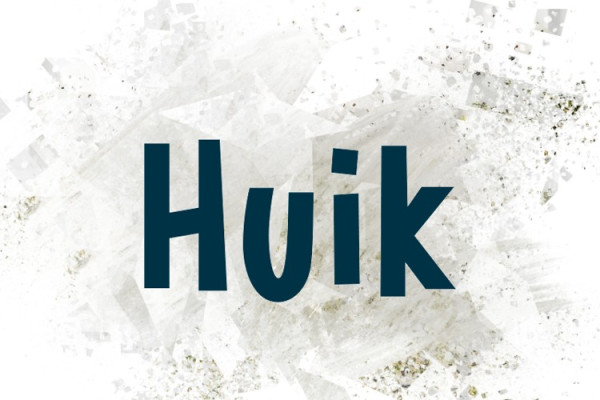
Huik Font, You can use it as a logo, badge, insignia, packaging, headline, poster, t-shirt/apparel, greeting card, and wedding invitation.
Huik Font
| Classification: | Display Fonts, Playful / Fun Fonts |